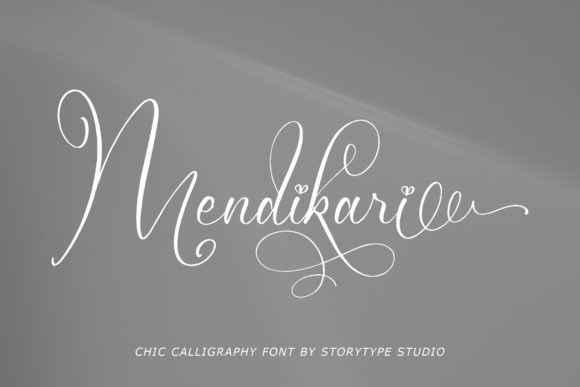
Welcome to the world of Mendikari, a font family that exudes elegance and sophistication. Experience the allure of calligraphy brought to life with a stroke of brilliance. This modern script invites you to create timeless designs that command attention and ignite the imagination.
Mendikari's sweeping curves and graceful lines evoke a sense of luxury and opulence. Its refined characters etch stories of elegance, making it the perfect choice for logos, book covers, and magazine headlines. Imagine your words dancing across the page, captivating readers with their allure.
With Mendikari, you hold the key to crafting unforgettable brand identities. Its stylish appearance elevates your logo, leaving an indelible mark on the minds of your audience. Let your brand shine with a touch of sophistication, setting you apart from the ordinary.
Explore the boundless possibilities of Mendikari's versatility. Whether you seek a touch of charm for your wedding invitation or an air of exclusivity for your fashion brand, this font family adapts effortlessly. Its timeless beauty complements diverse design aesthetics, adding a touch of artistry to every project.
Mendikari's meticulous attention to detail captivates the eye. Each letterform is carefully crafted, exuding a sense of harmony and balance. Its graceful strokes intertwine like a symphony, creating a visual masterpiece that commands attention.
Step into the realm of Mendikari and transform your designs into works of art. Its captivating charm will ignite your creativity, inspiring you to create masterpieces that leave a lasting impression. Embrace the magic of Mendikari and elevate your designs to new heights of sophistication.